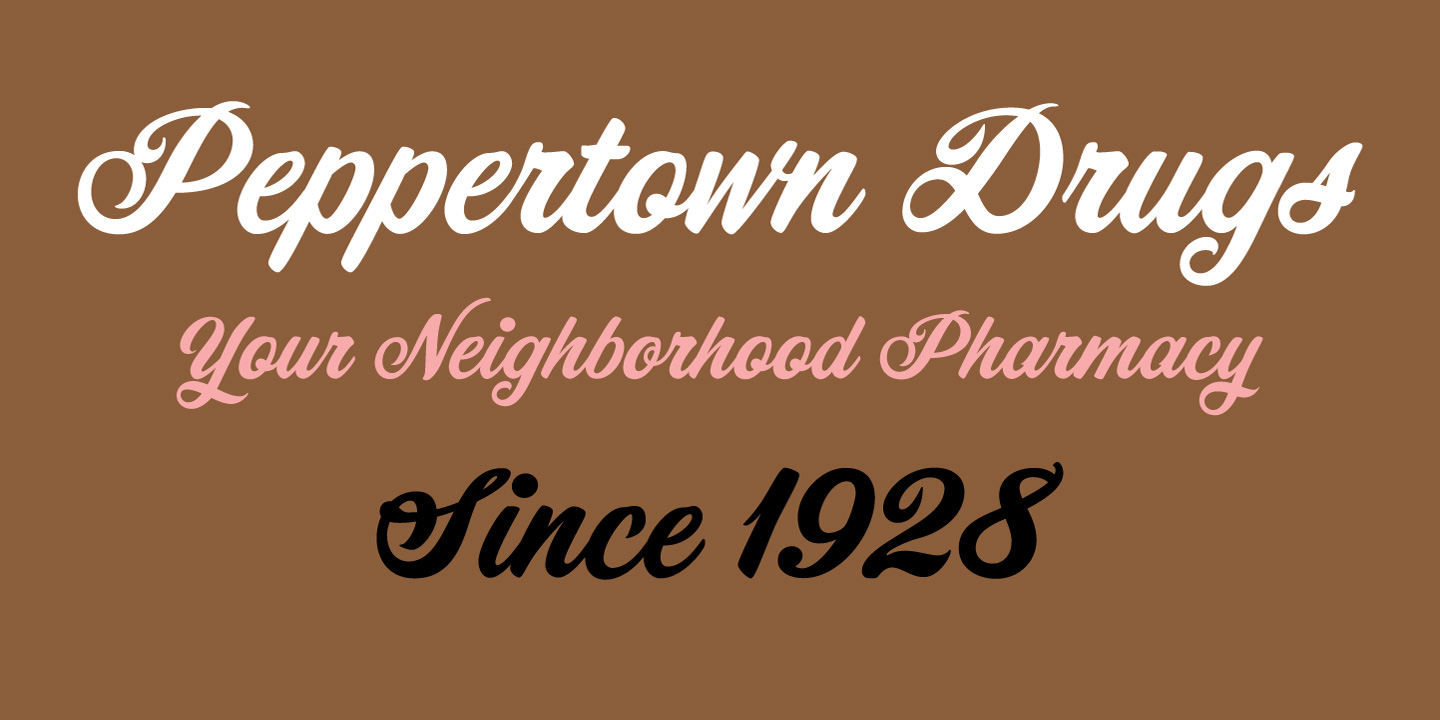
The Corner Store JF Font is excellent for neighborhood deli signage, local grocery store branding, community market materials, vintage soda shop signs, family-owned business promotions, small-town retail advertising, convenience store graphics, and authentic local commerce campaigns. This friendly typeface works wonderfully in applications where community connection and local charm need to be emphasized, making it perfect for small businesses that want to communicate neighborhood authenticity and hometown reliability through welcoming, approachable typography.
What makes Corner Store JF Font exciting is its genuine neighborhood character and small-town authenticity that captures the essence of local community commerce and family-owned business tradition. The font's friendly letterforms and corner store-inspired design create an atmosphere of community trust and local familiarity, making it ideal for businesses that want to establish personal connections with their neighborhood customers. Its welcoming presence ensures that every application feels like a trusted local establishment with authentic community credibility.
The Corner Store JF Font family typically includes regular, bold, and vintage weights, often featuring retro signage elements, local business symbols, and neighborhood motifs that enhance its community appeal. Many versions include storefront decorations, local commerce indicators, and specialized characters that provide designers with comprehensive tools for creating authentic local business design projects with genuine small-town charm and community sophistication.
For designers working on projects that require local authenticity and community credibility, Corner Store JF Font Free Download provides exceptional neighborhood appeal. Its ability to instantly communicate local trust and community connection makes it an invaluable choice for small businesses, local retailers, and any project requiring typography that embodies the warmth of neighborhood commerce, the reliability of family-owned businesses, and the authentic charm of community-centered retail and local entrepreneurship.